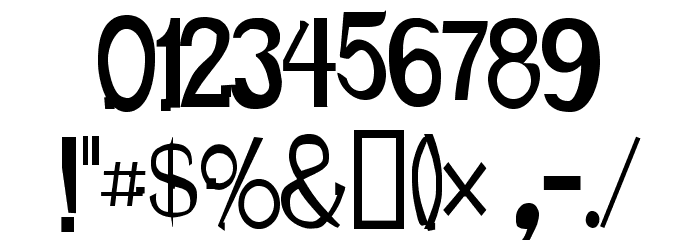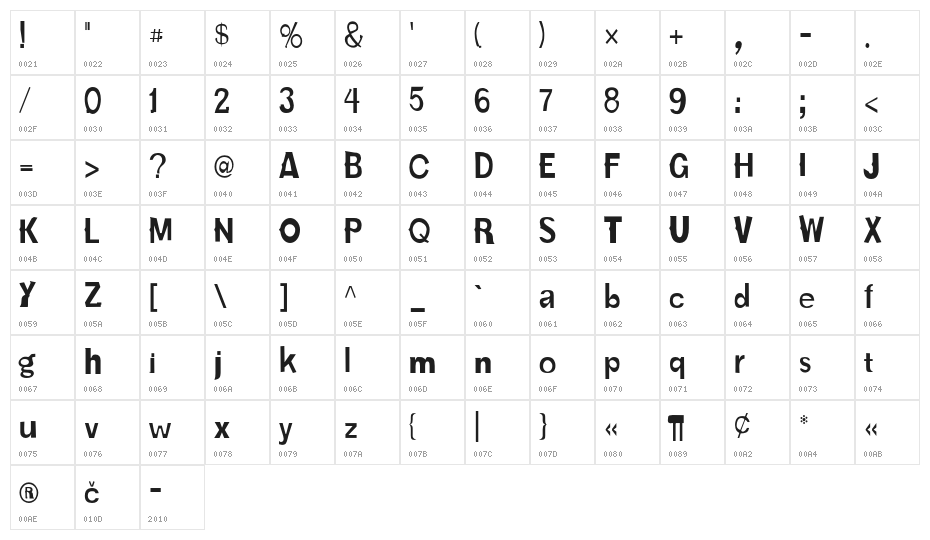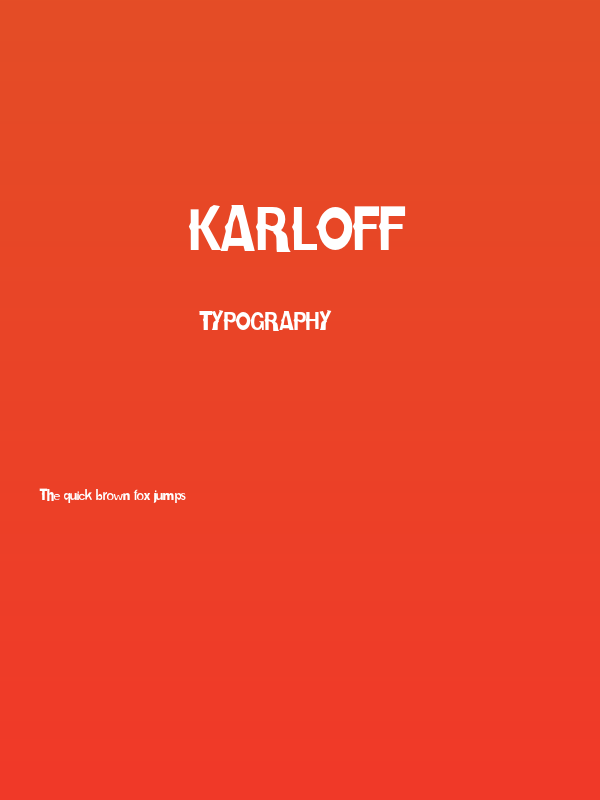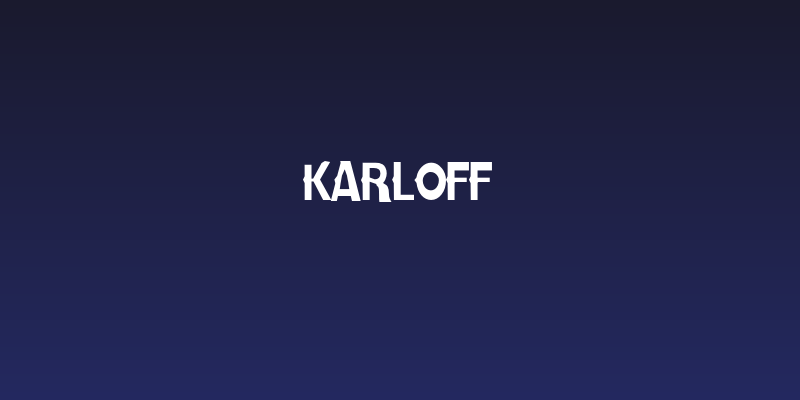
Karloff Font
Karloff Description
This font features a bold and striking design with high contrast between thick and thin strokes, creating a dramatic and impactful appearance. The uppercase letters are particularly distinctive, with unique shapes and angles that give them a modern yet slightly retro feel. The lowercase letters maintain a consistent style, complementing the uppercase with a smooth and rounded form. The numerals are clear and easy to read, while the special characters add a touch of flair. Overall, this font exudes a sense of boldness and confidence, making it ideal for attention-grabbing designs.
| Proposed Projects | Ideal for branding, poster design, headlines, and any project requiring a strong visual impact. |